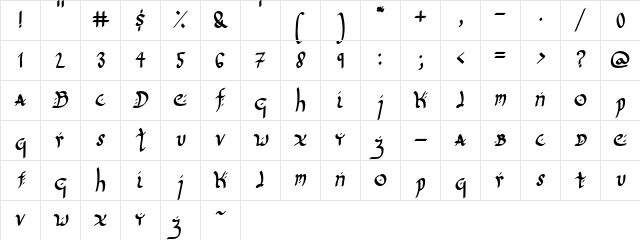
Complete Quick Quill Regular glyph index. Displaying only characters natively supported by Quick Quill Regular font.
Quick Quill is a composed and adaptable typeface that performs quietly and consistently across a wide range of design contexts.